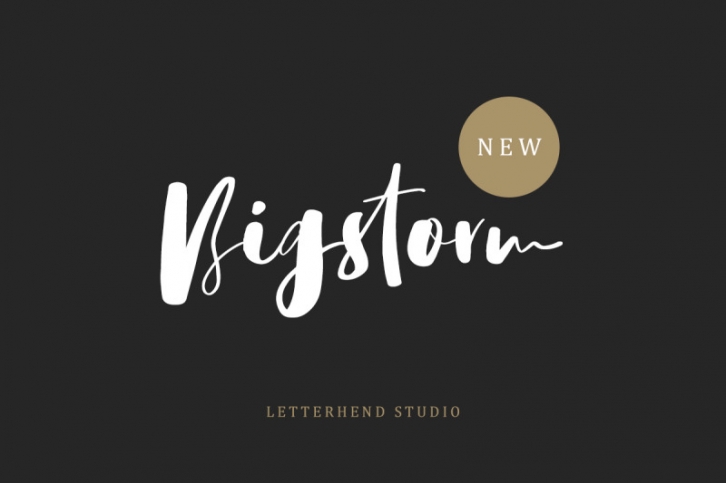
Bigstorm is a unique hand made font that will capture the attention at glance. This font is perfect to be used as signature, headline, lettering quotes, wedding invitation, fashion, etc. It also comes in uppercase, lowercase, punctuations, symbols & numerals, stylistic set alternate, ligatures, etc also support multilingual.